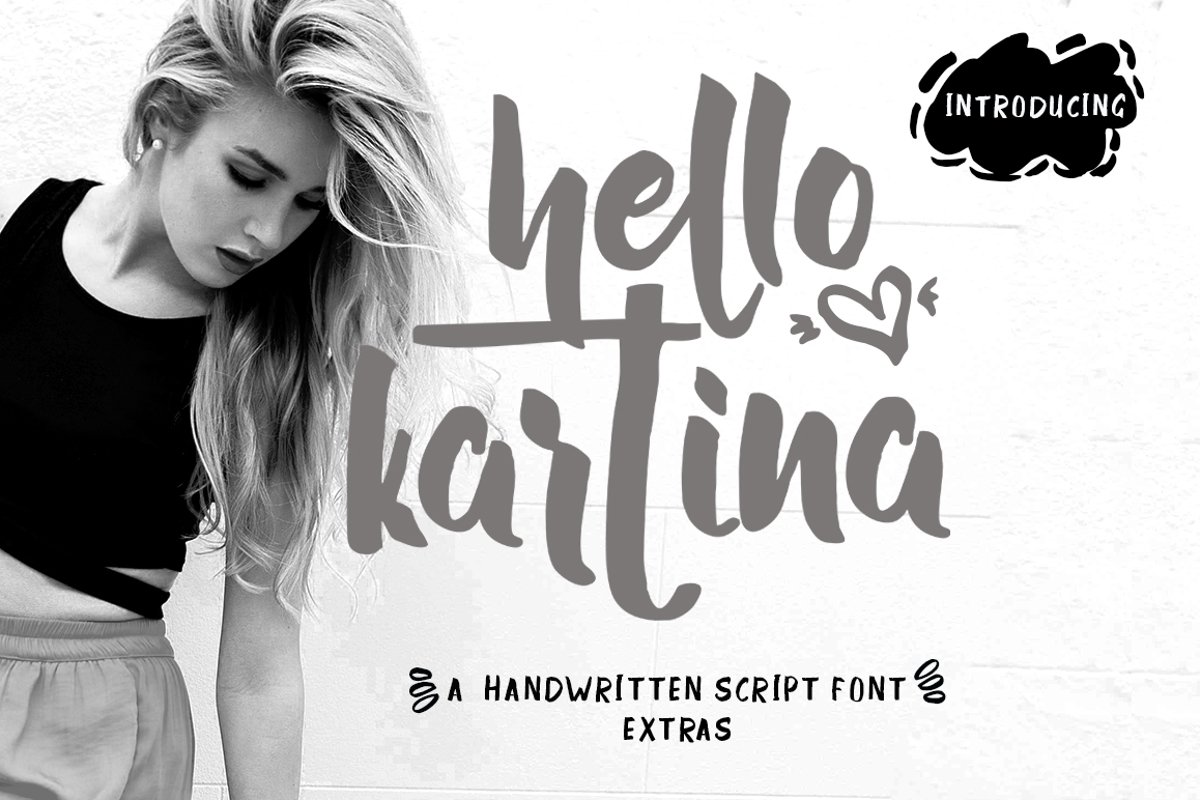
Hello Kartina
Hello Kartina Eetras
Hello Kartina
Hello Kartina Script is a beautiful, organic, and fun handpainted script with different basics and handkerchiefs that can be applied at the beginning and end of all lowercase letters.
International support for most Western languages ​​is included. For separate font swash, type lowercase a-z for initial swash and final swash. This font can be used for various purposes. Such as titles, signatures, , wedding invitations, t-shirts, letterhead, signage, labels, news, posters, badges etc.